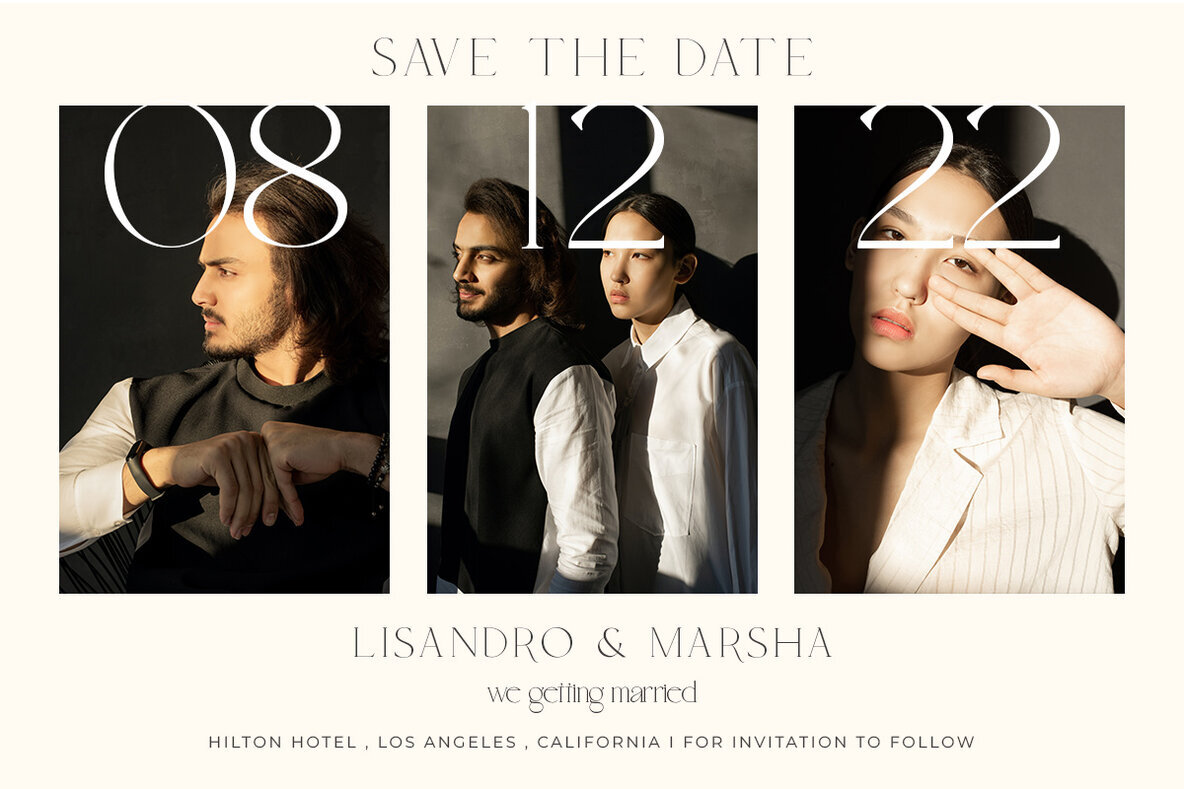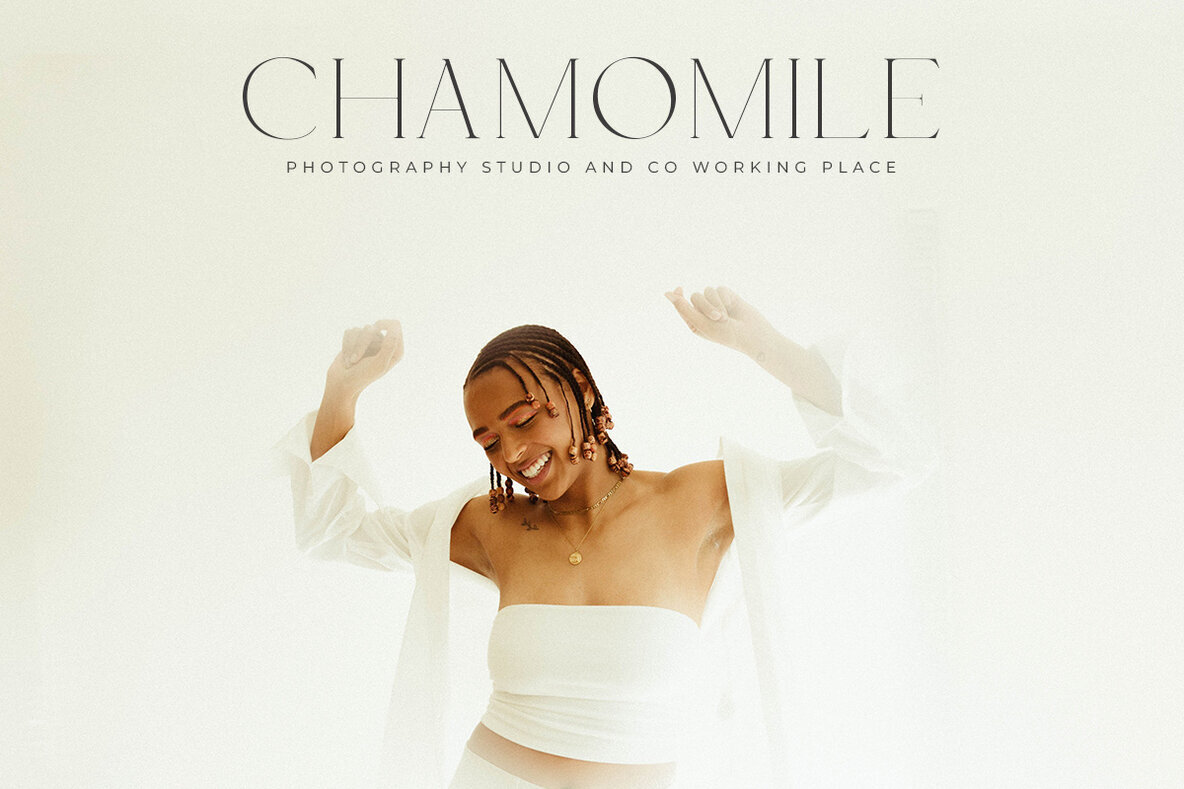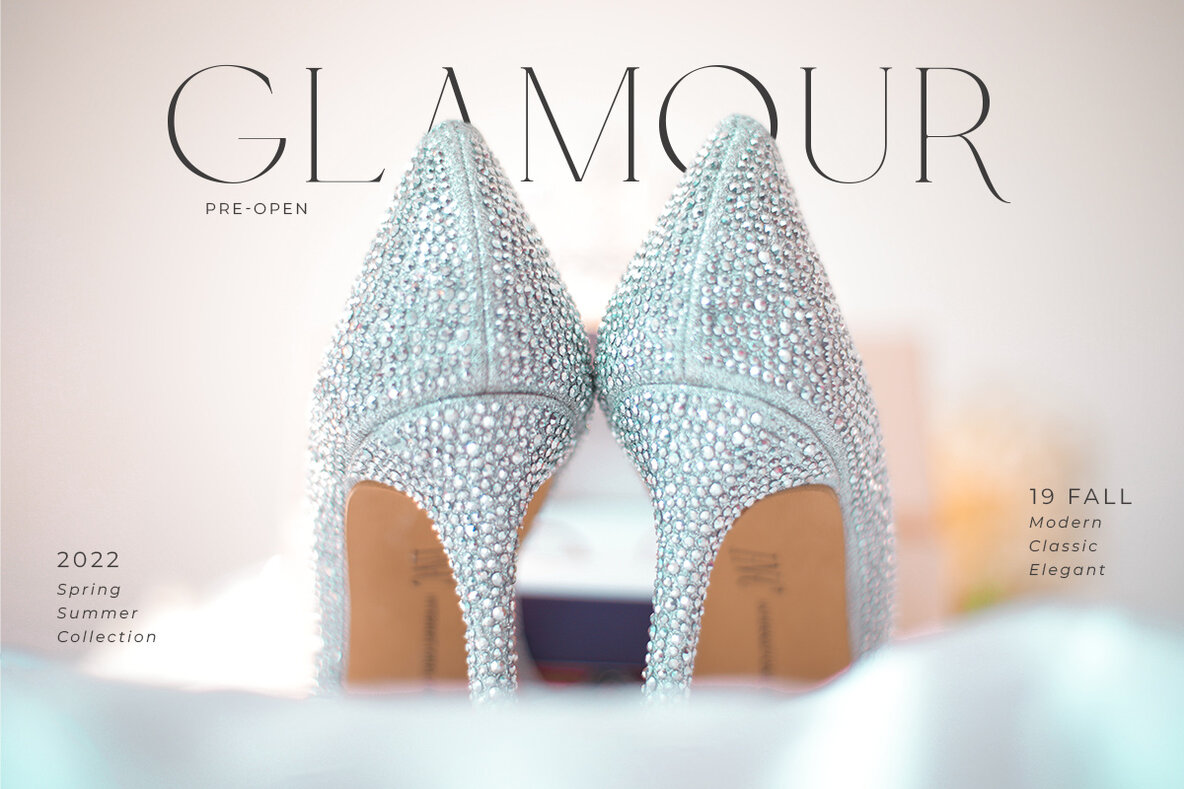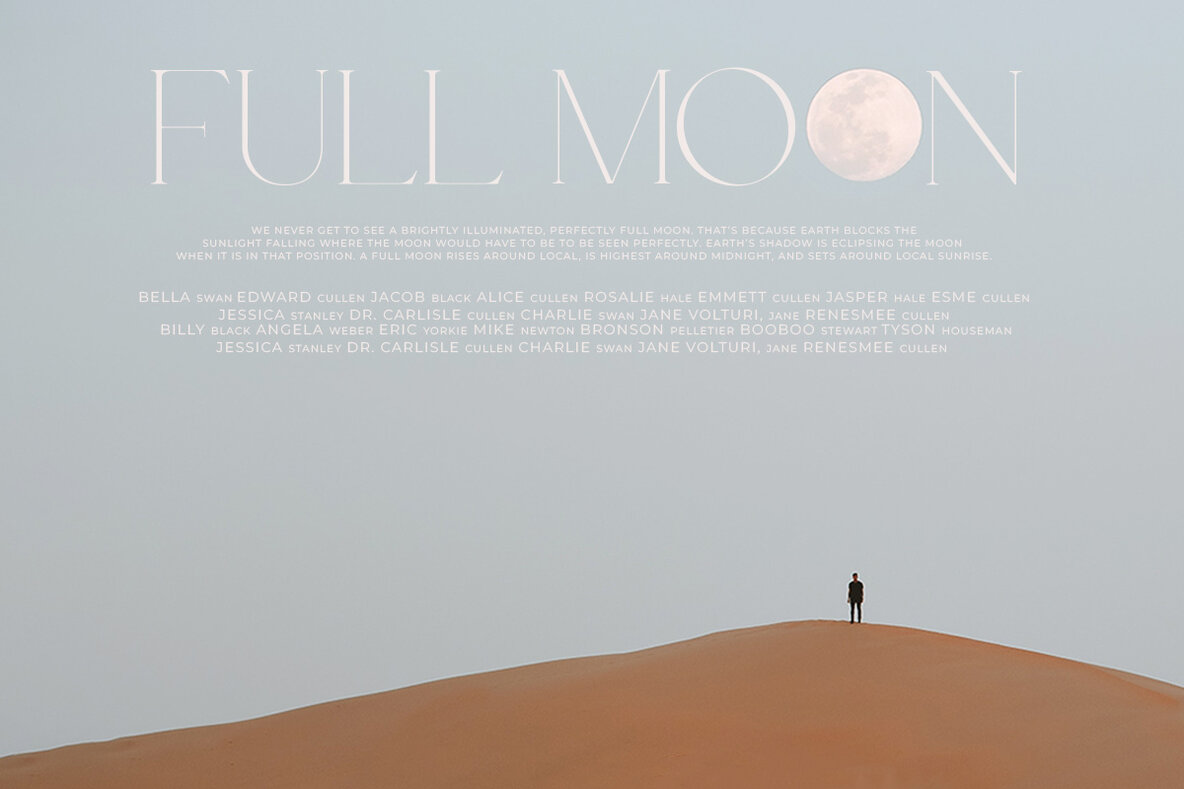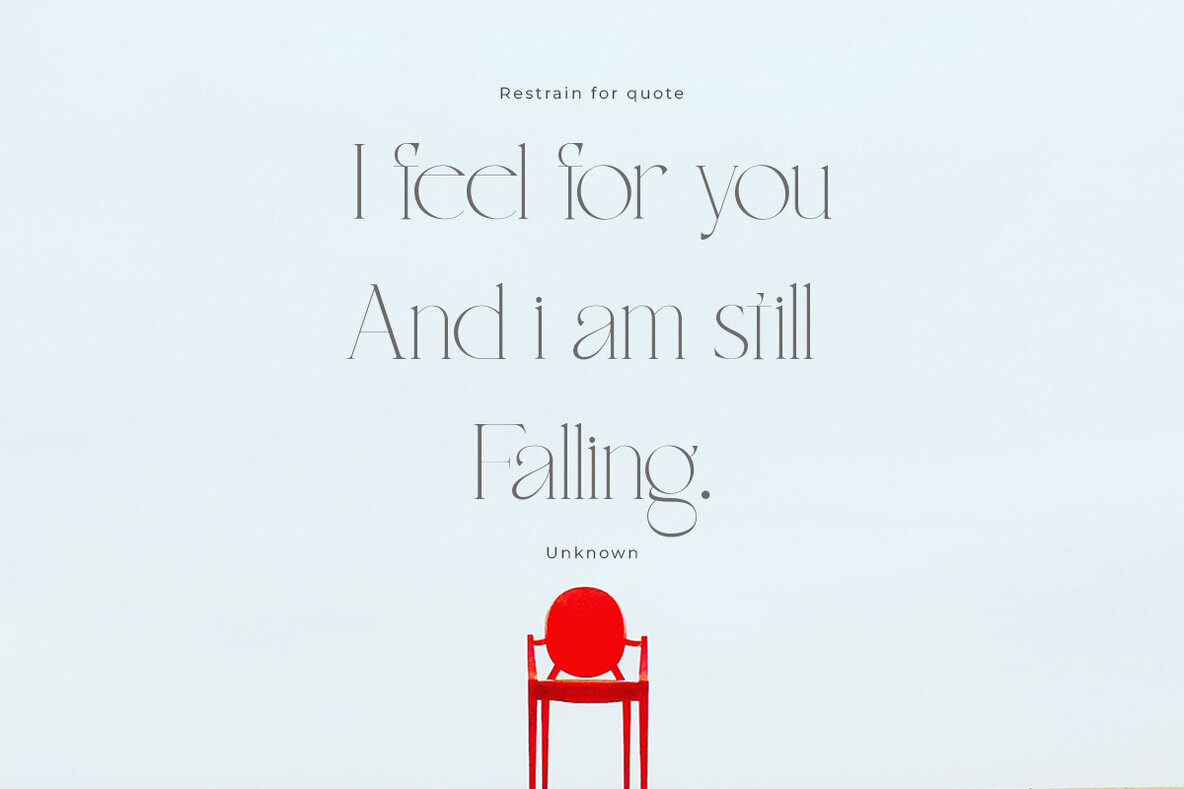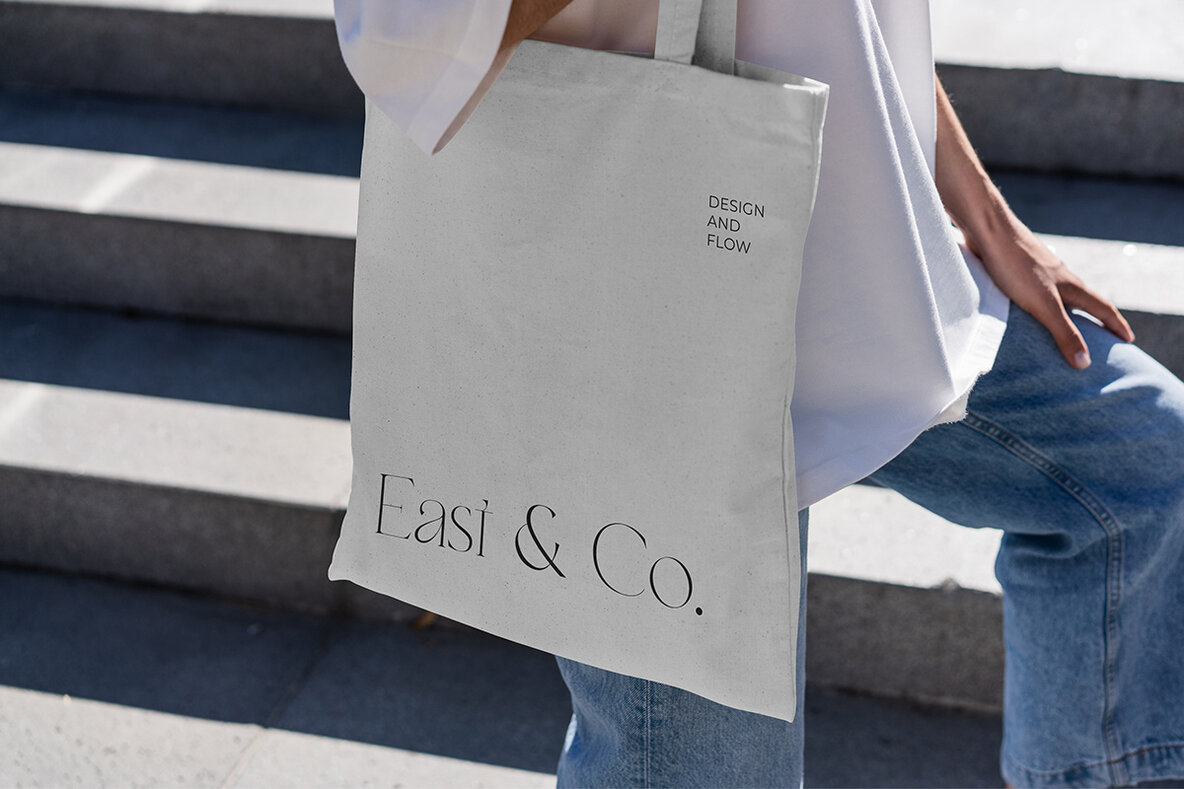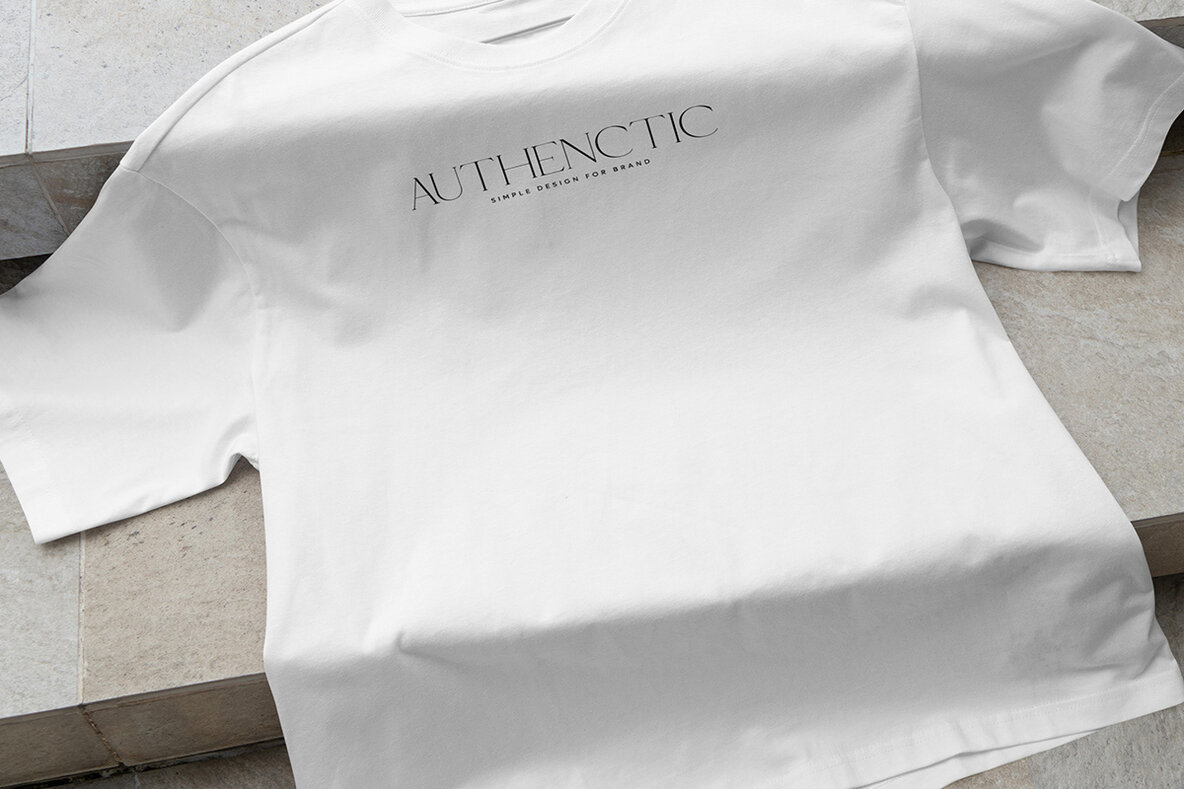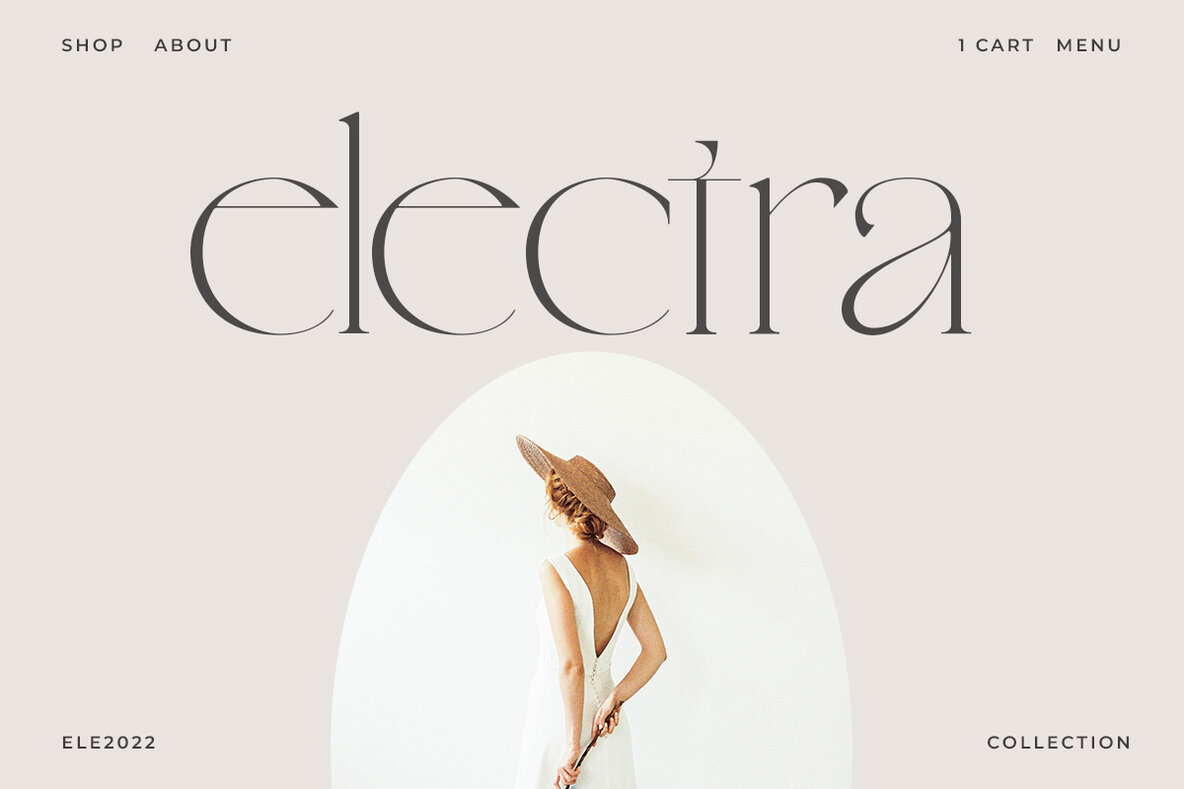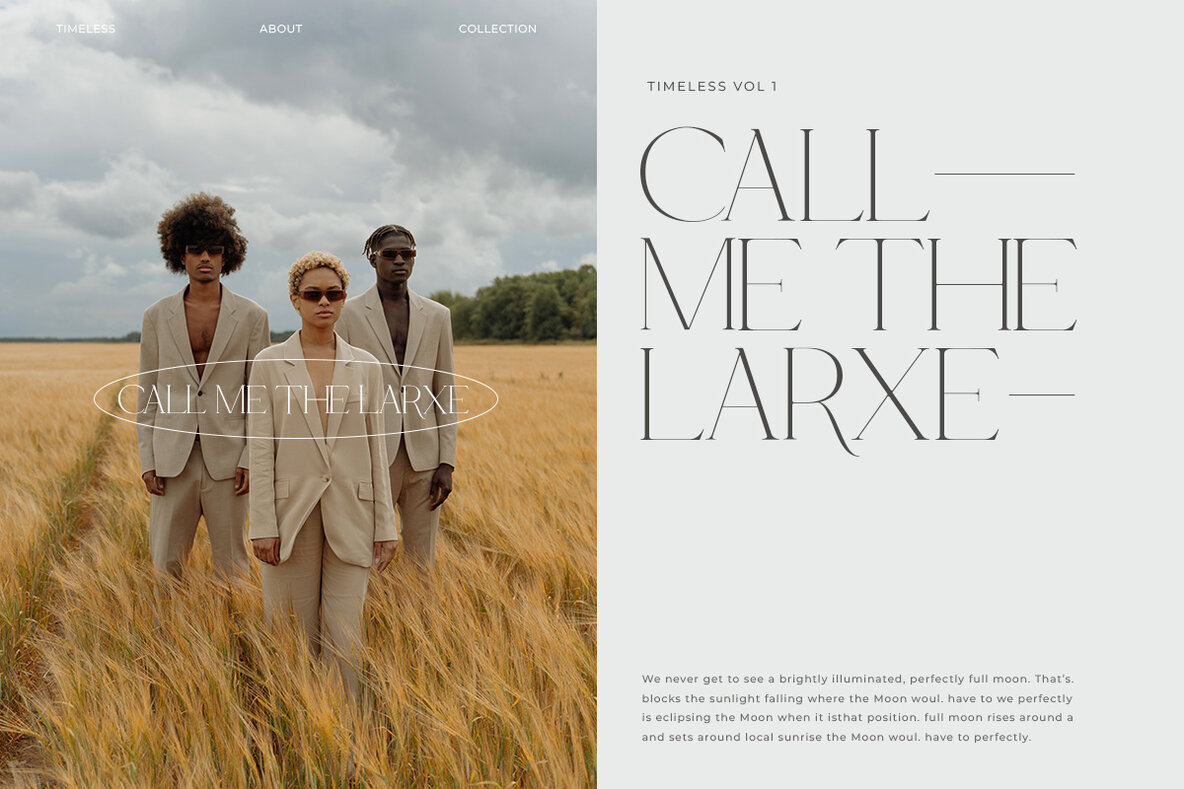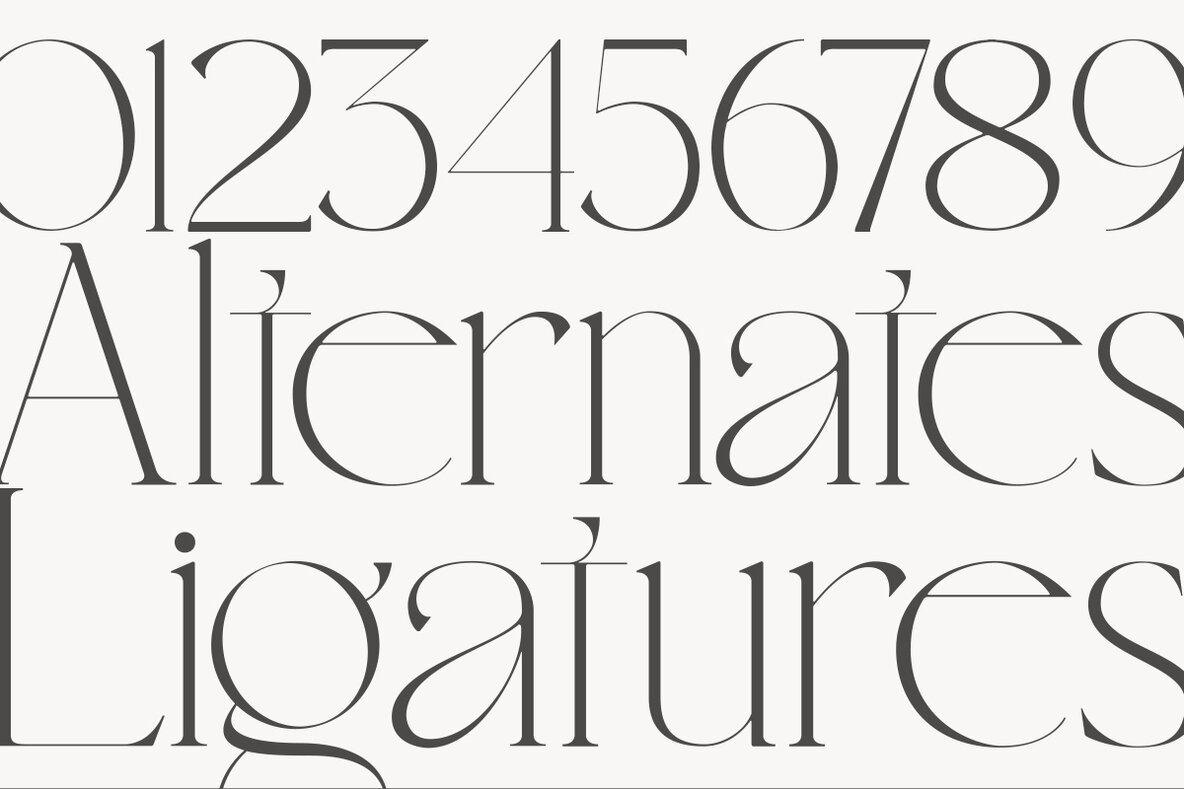
Restrain Font
Restrain Regular
Restrain is a Modern serif typeface Unique alternate , multilingual support with perfect kerning. its modern and minimal treatment, it makes a great starting point as well as an enhancement for your design. It is perfect for cosmetic brand, fashion promotion , modern advertising design, invitation card, art quote, home decoration , book/cover titles, special events, and much more. etc. Restrain Features: • Uppercase & Lowercase • Alternates & Ligatures • Numerals & Punctuation • Accented characters • Format File: TTF,OTF • Multilingual Support • Unicode PUA Encoded